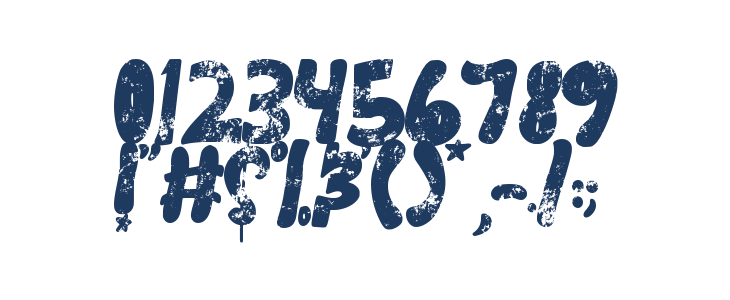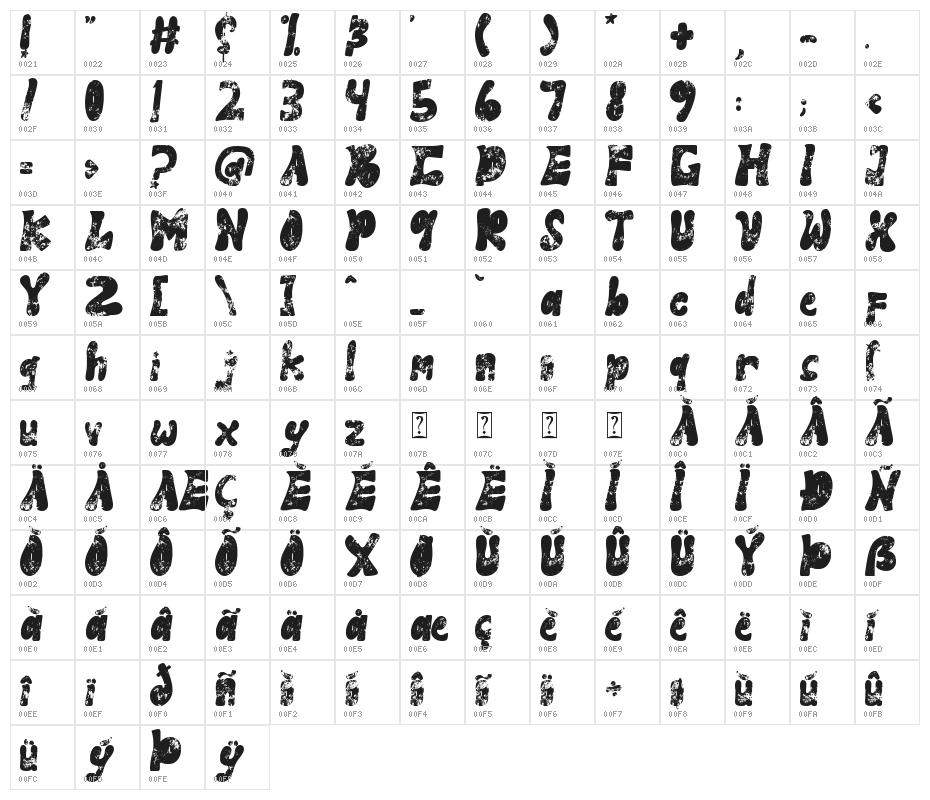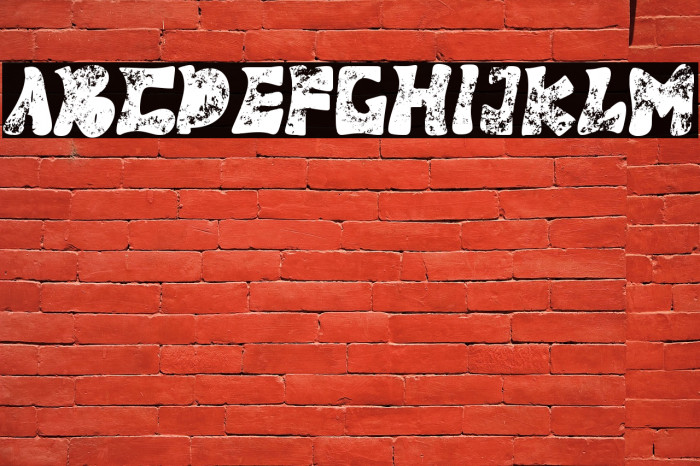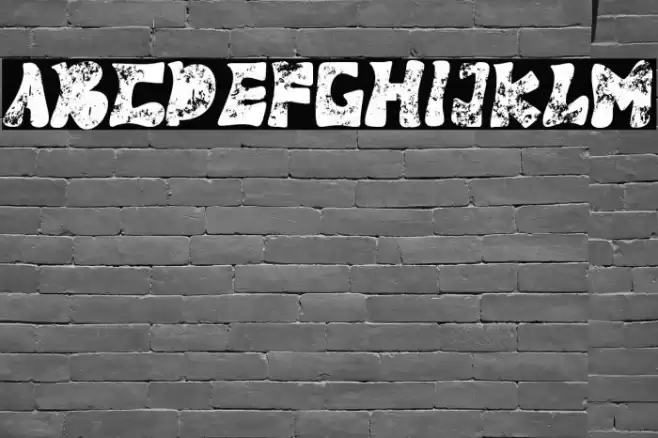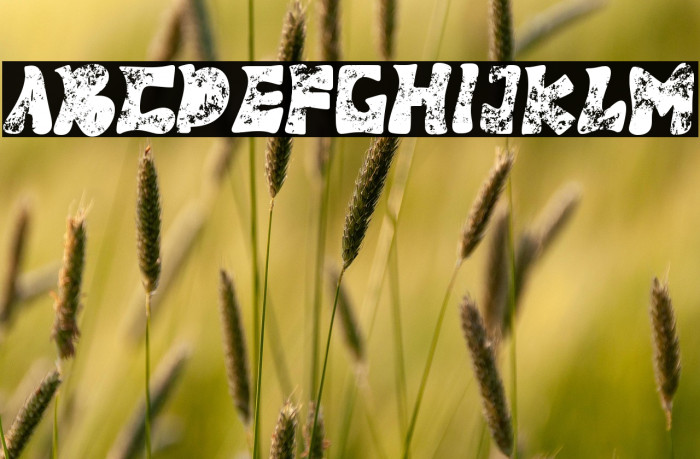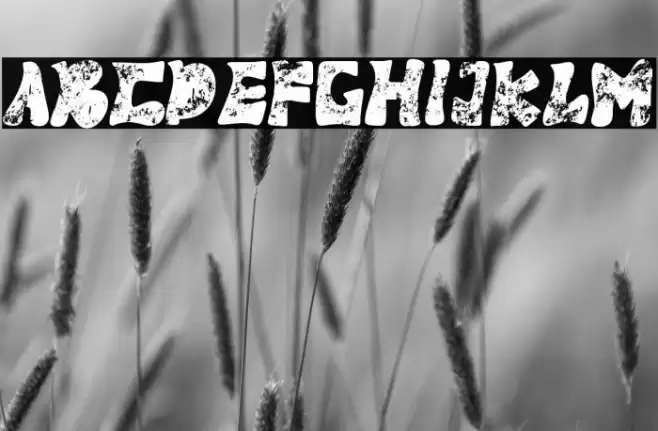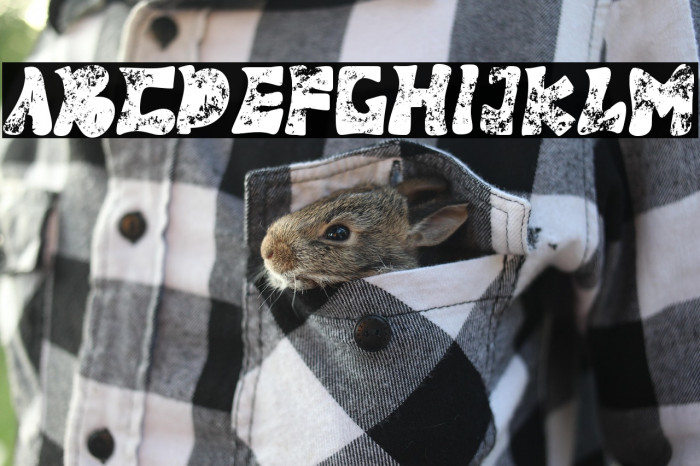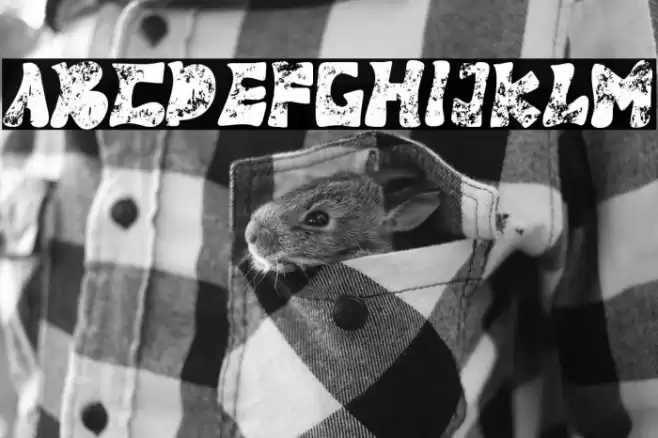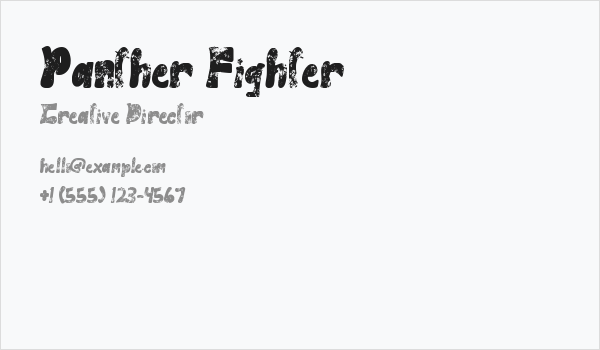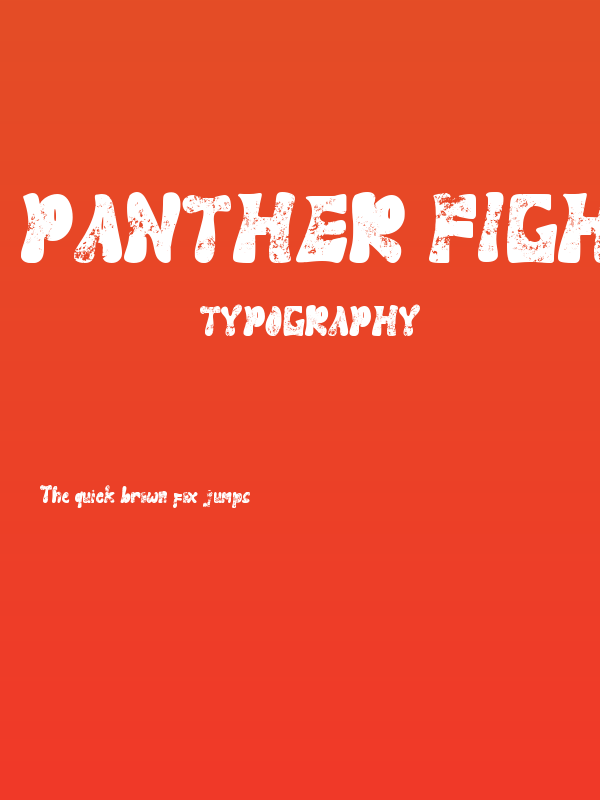
Panther Fighter Font
Panther Fighter Description
This font features a bold and rugged style with a distressed texture that gives it a gritty, urban feel. The characters are thick and rounded, with a playful yet aggressive appearance. The uppercase and lowercase letters maintain a consistent weight, while the numbers and special characters follow the same design ethos, ensuring uniformity across all glyphs. The distressed effect adds a layer of depth and character, making it ideal for projects that require a strong visual impact. Its unique style is perfect for grabbing attention and conveying a sense of boldness and creativity.
| Proposed Projects | Ideal for posters, album covers, streetwear branding, and any design needing a bold, gritty aesthetic. |